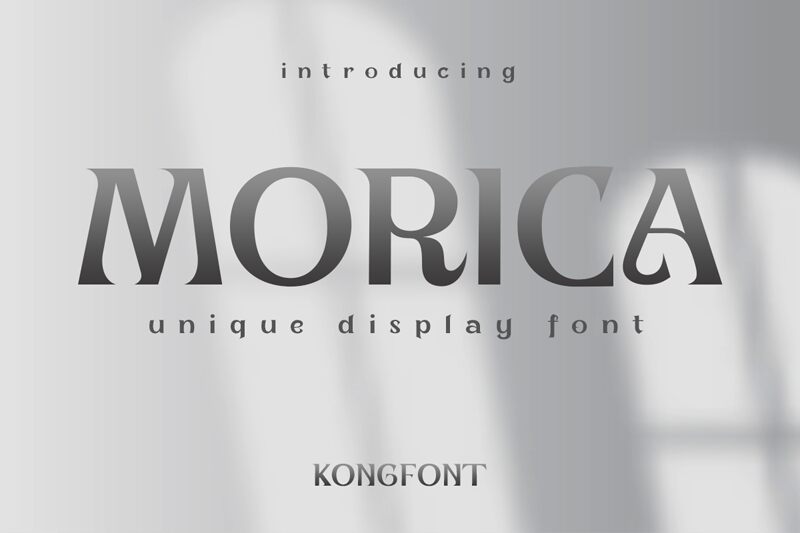
Morica font by Kong Font is uniquely retro, yet modern and timeless, too. It’s firm, masculine lines with attractive, slightly condensed spacing make Morica a great choice for elegant or formal designs that require boldness. Anchored with high contrast strokes and well-balanced thick stems give it a sharp finish.
Popular use cases include magazines, posters and landing pages in need of contemporary headlines or subheadings – basically projects that naturally call for a more premium touch. Depending on your needs Morica can be used for wedding invitations as well! So feel free to explore it's open license test-driving variety!